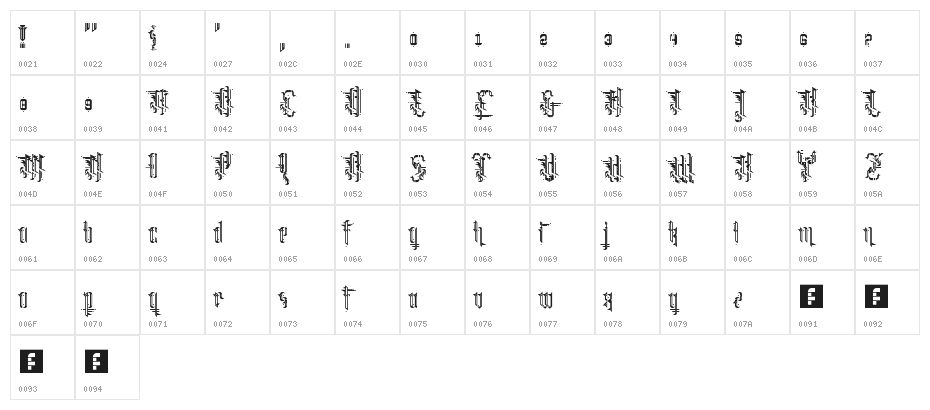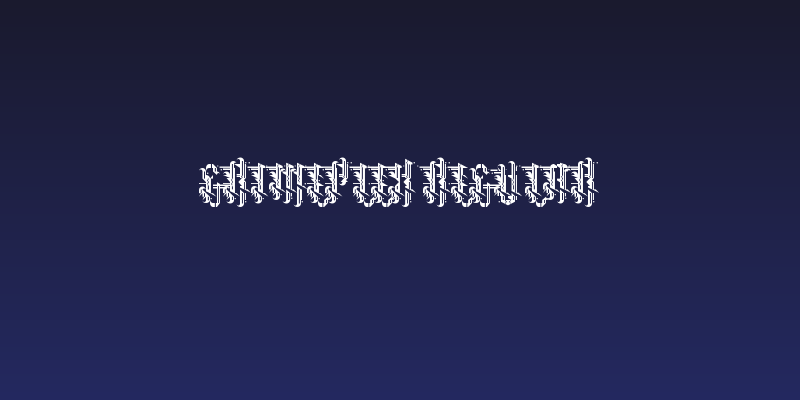
Grimeplex Regular Font
Grimeplex Regular Description
This font exhibits a striking and intricate design, reminiscent of traditional blackletter styles with a modern twist. The characters are highly decorative, featuring elaborate serifs and sharp angles that create a sense of drama and sophistication. The uppercase letters are particularly ornate, with complex flourishes that enhance their visual impact. The lowercase letters maintain a consistent style, offering a cohesive look across the typeface. Numbers and special characters are equally detailed, ensuring a uniform appearance throughout. This font is ideal for projects that require a bold and artistic statement.
| Proposed Projects | Ideal for tattoo designs, gothic-themed posters, album covers, and branding that requires a dramatic and artistic touch. |